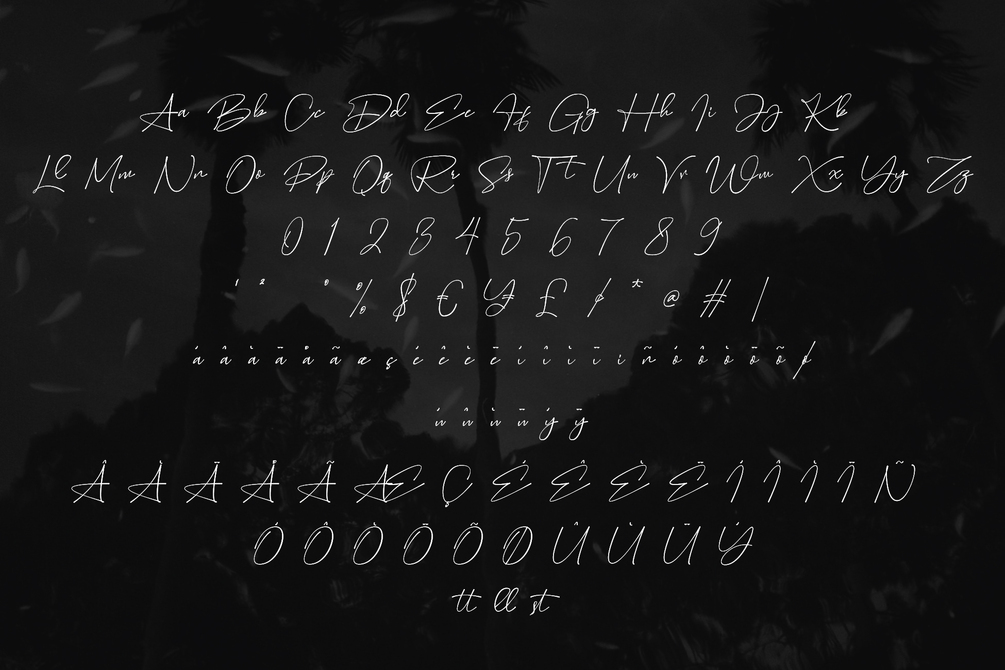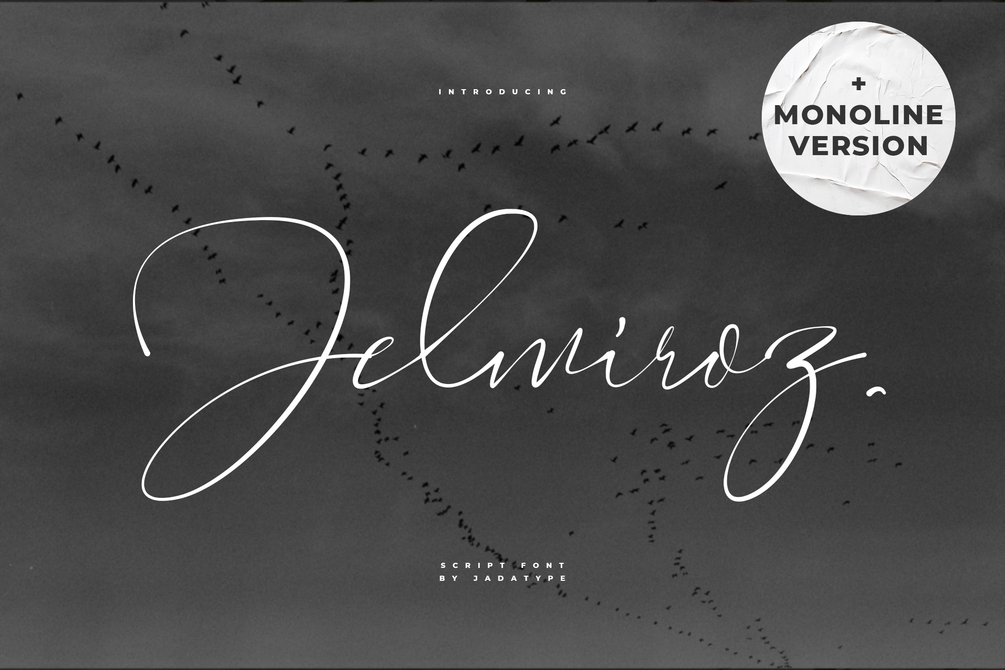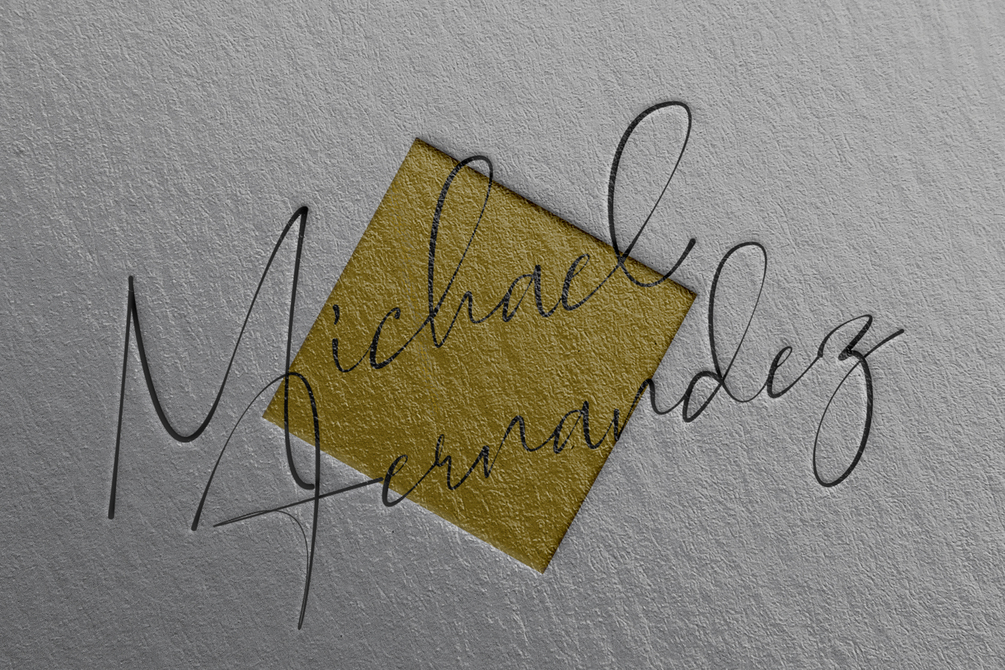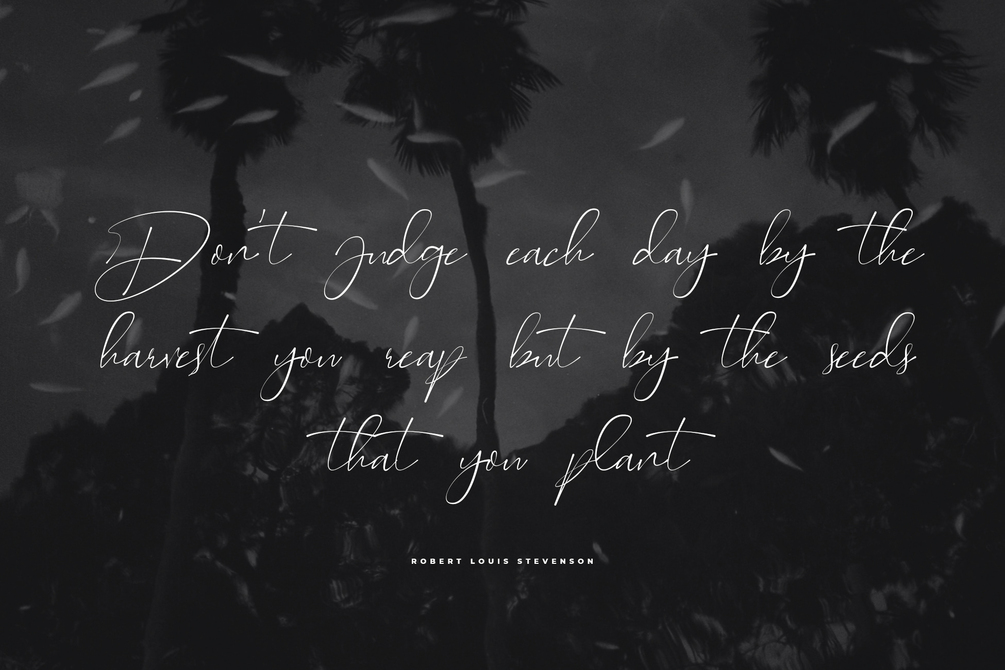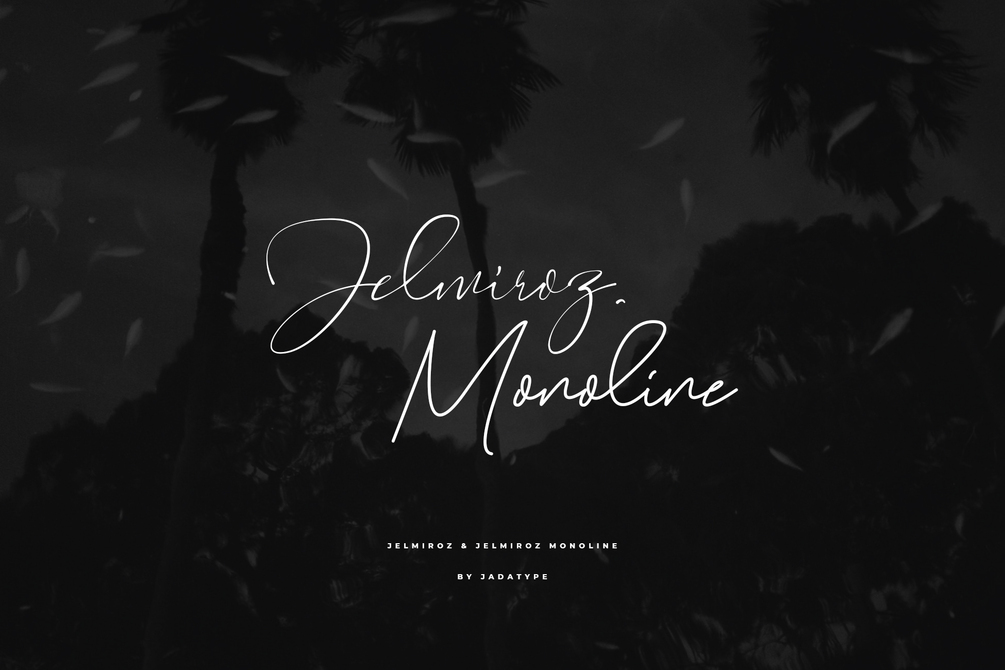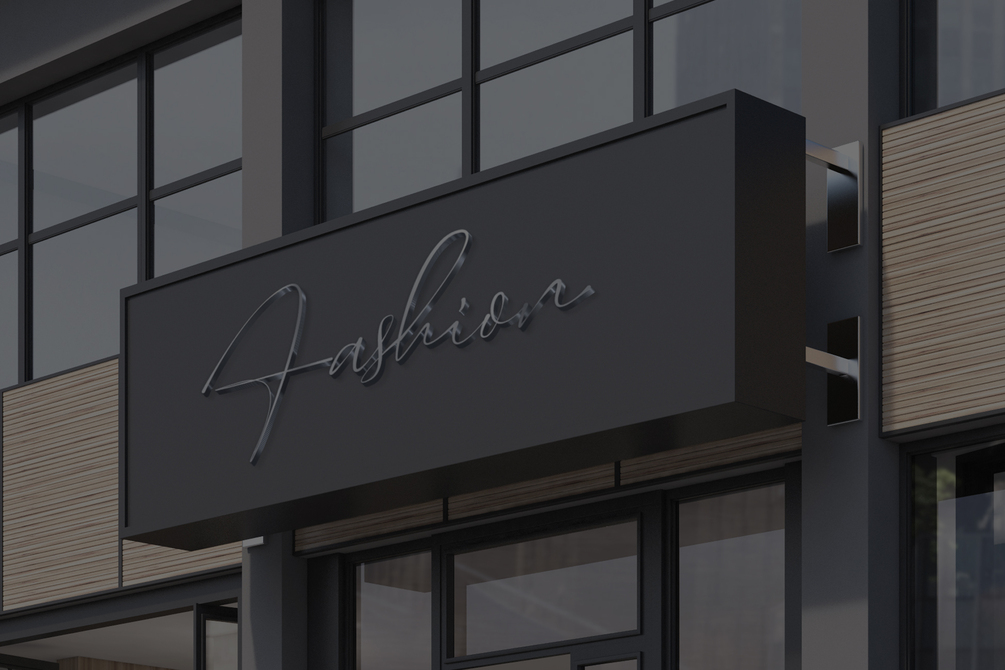
Jelmiroz Font
Jelmiroz is a font with a stylish signature style. suitable for branding, social media, products, advertisement, and so on. contains standard English letters, numbers, punctuation, and several accents that support multilingualism.